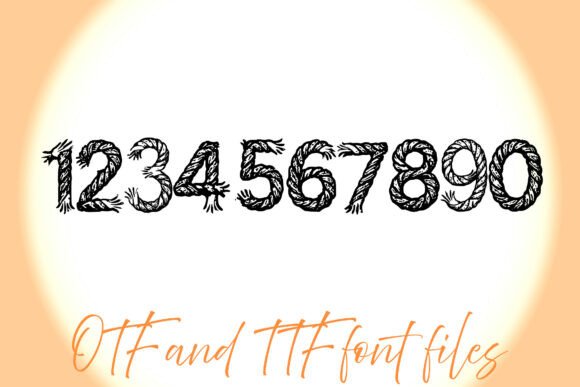
Twisted Rope Font
Rugged and textured, Twisted Rope Font features lettering made from detailed rope illustrations. Ideal for Western themes, farm branding, nautical invitations, and rustic product packaging.